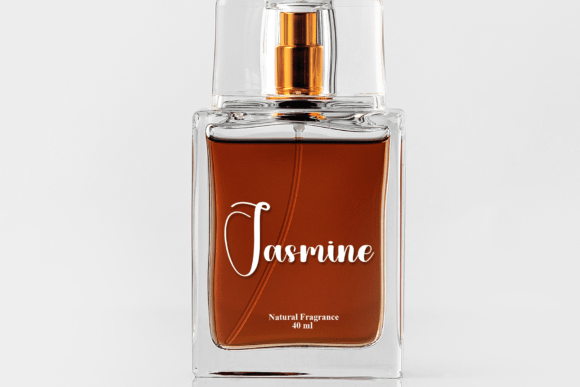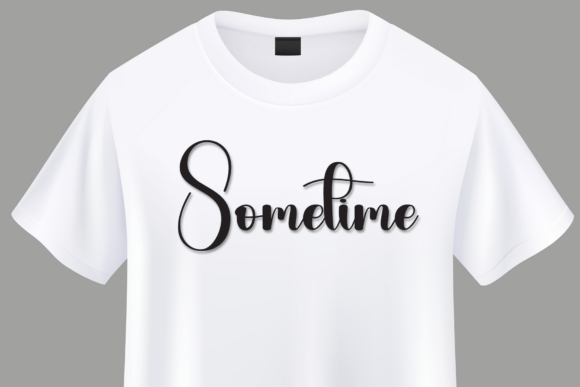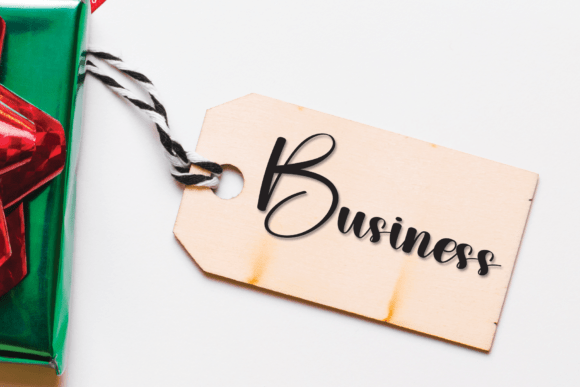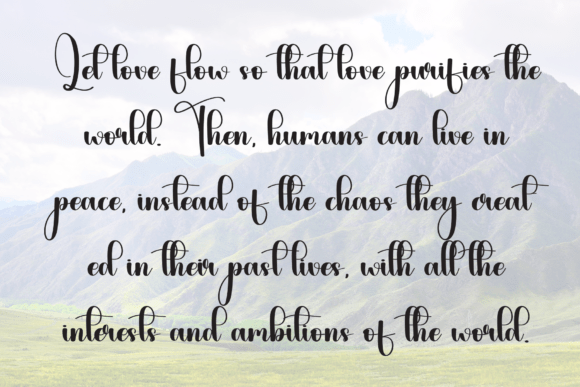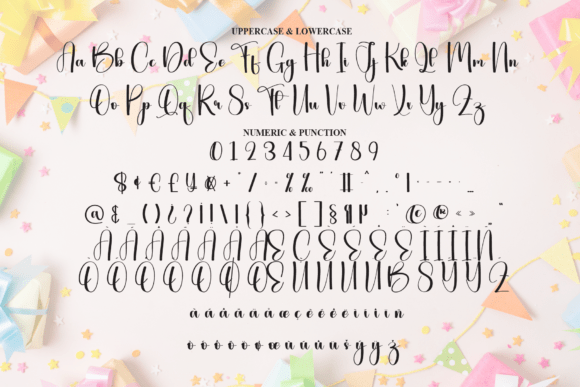
The Ultimate Guide to Birthday Font: Adding a Festive Touch to Your Designs
I’ll never forget the time I was working on a birthday party invitation project, and I just couldn’t find the right font to capture the playful and celebratory vibe. My client wanted something that would make the invitation feel like a gift, and I was determined to deliver. That’s when I stumbled upon the Birthday Font – a joyful and charming handwritten script font that instantly brought the party to life! 🎉
As a designer, I’m always on the lookout for fonts that can elevate my projects and make them more engaging. Here’s what I love about Birthday Font:
- ✨ Whimsical swashes that add a touch of elegance and sophistication
- ✅ A heart detail on the final letter, making it perfect for birthday cards and party invitations
- 🎉 A modern and friendly style that’s both eye-catching and approachable
- 🤝 Highly versatile and suitable for various design projects, from greeting designs to stickers and celebratory branding
While Birthday Font is an amazing addition to any design project, there are a few quirks to keep in mind:
- ⚠️ Some of the swashes and glyphs can be a bit finicky, requiring a bit of experimentation to get just right
- 🤔 The font’s playful nature might not be suitable for more formal or corporate designs
- Experiment with the font’s OpenType features, such as swashes and stylistic alternates, to add more personality to your design
The Story Behind Birthday Font
Birthday Font was designed with one goal in mind: to bring a little bit of joy and celebration to every design project. Its creator, a talented type designer, was inspired by the magic of birthdays and the importance of making every celebration special. With its whimsical swashes and heart detail, Birthday Font is the perfect way to add a festive touch to any design.